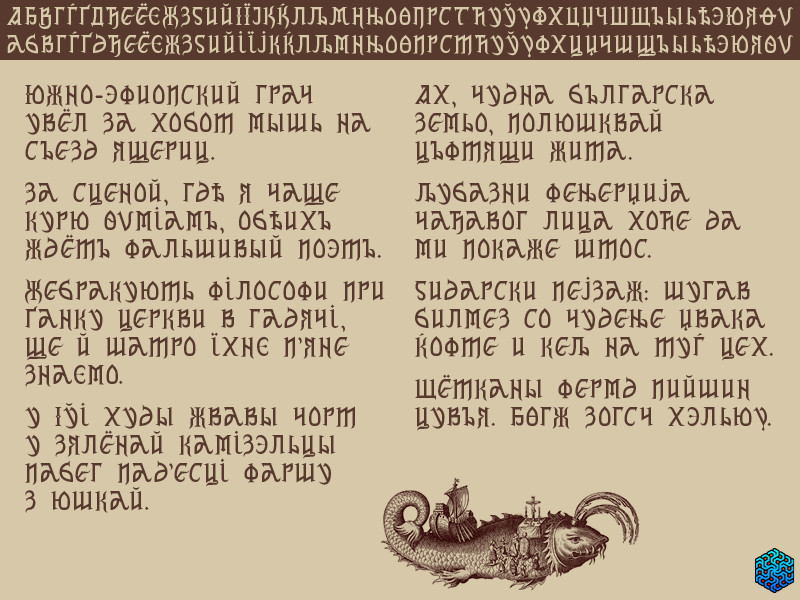
Porspican Font
I created this font from decorative titles that I used to hand write on my CDs a decade ago, inspired then by various fonts I liked.
This new version 007.16 includes Cyrillic and additional accented Latin characters, and the kerning was reworked. Some characters (such as E, R) have cleaner curves, and a few characters that I had to redesign for Cyrillic (such as the м that must not look like the m, the н that must not look like the h) are also available as opentype alternate latin characters.